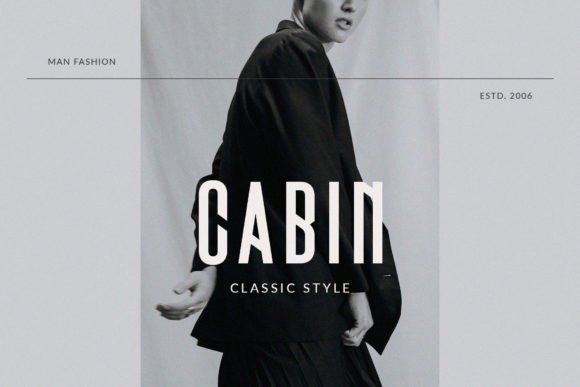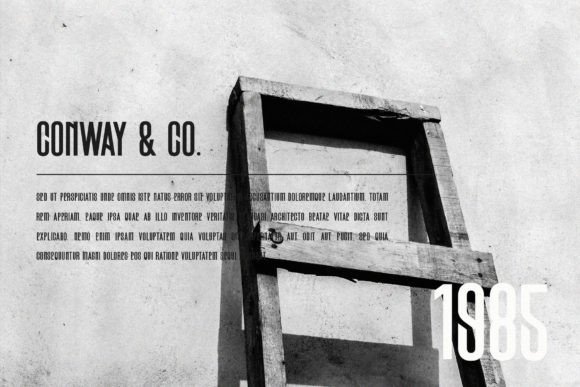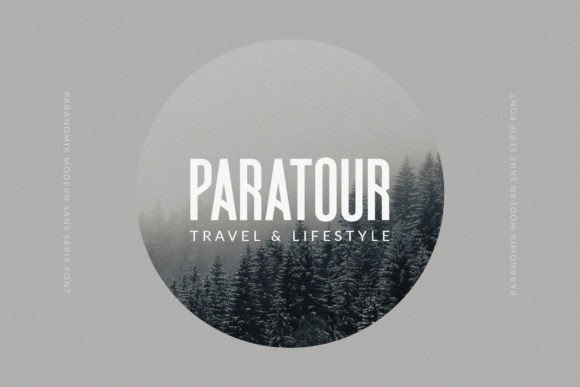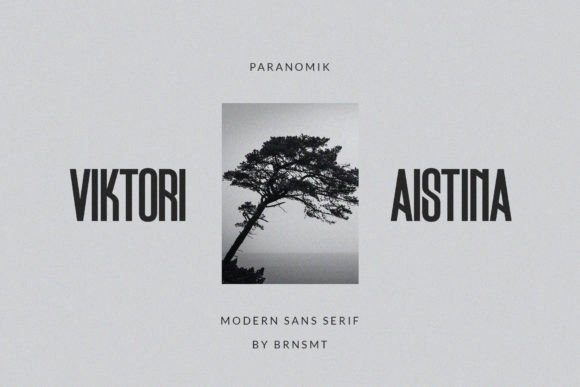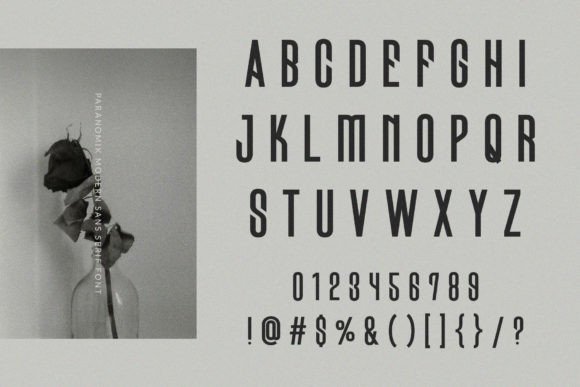
Introduction to Paranomik Font
Paranomik is a modern and classy sans serif typeface, best used as a display for headings, logos, branding, magazines, product packaging, and invitations.
Paranomik comes with clean lines and smooth curves, giving any project an extra touch of class .
Key Features of Paranomik Font